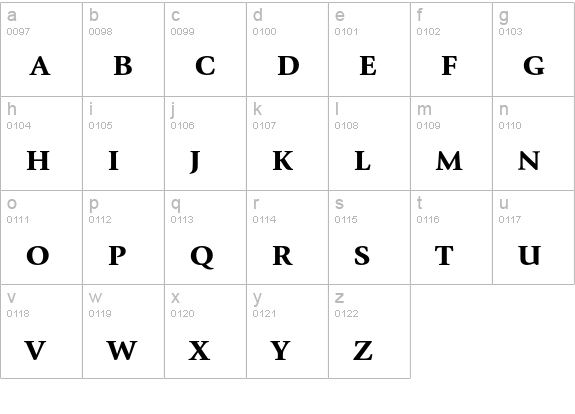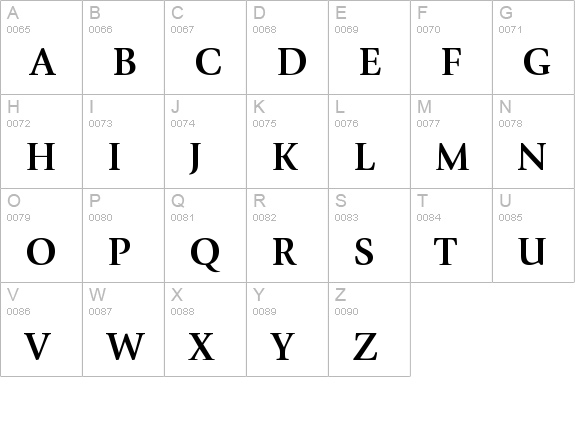
GiovanniSCEF-Bold Font Details
GiovanniSCEF-Bold is a strong, high-contrast variant in the GiovanniSCEF typeface family \xE2\x80\x94 well suited to headlines, attention-grabbing titles, and strong calls-to-action.
Introducing GiovanniSCEF-Bold, a striking and versatile font that exudes elegance and sophistication. This modern typeface is perfect for making a bold statement in your design projects. With its clean lines and strong presence, GiovanniSCEF-Bold commands attention and adds a touch of professionalism to any layout. What sets GiovanniSCEF-Bold apart is not just its sleek design, but also the fact that it is available for free download at FontsMarket.com. Yes, you read that right - this high-quality font can be yours at no cost, allowing you to elevate your creations without breaking the bank. Whether you're working on a logo, poster, website, or any other design project, GiovanniSCEF-Bold is sure to make a lasting impression. Download GiovanniSCEF-Bold today and take your designs to the next level with this exceptional font.